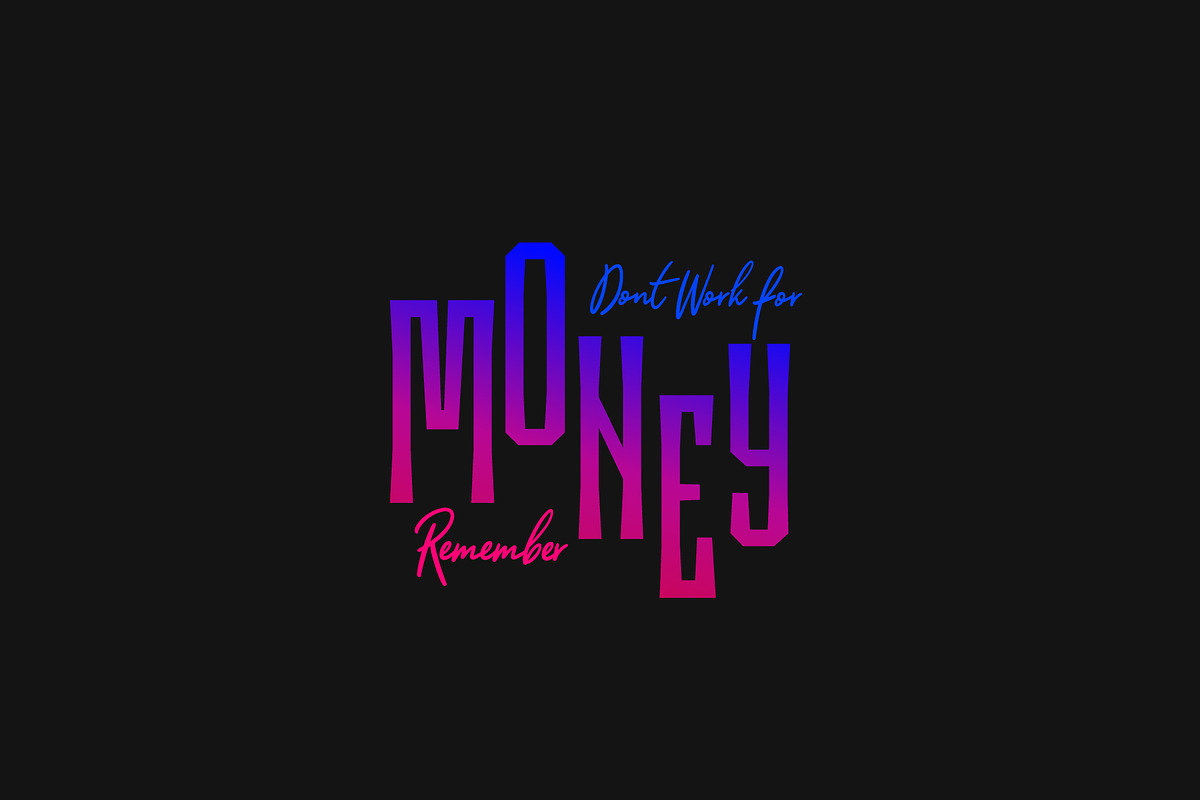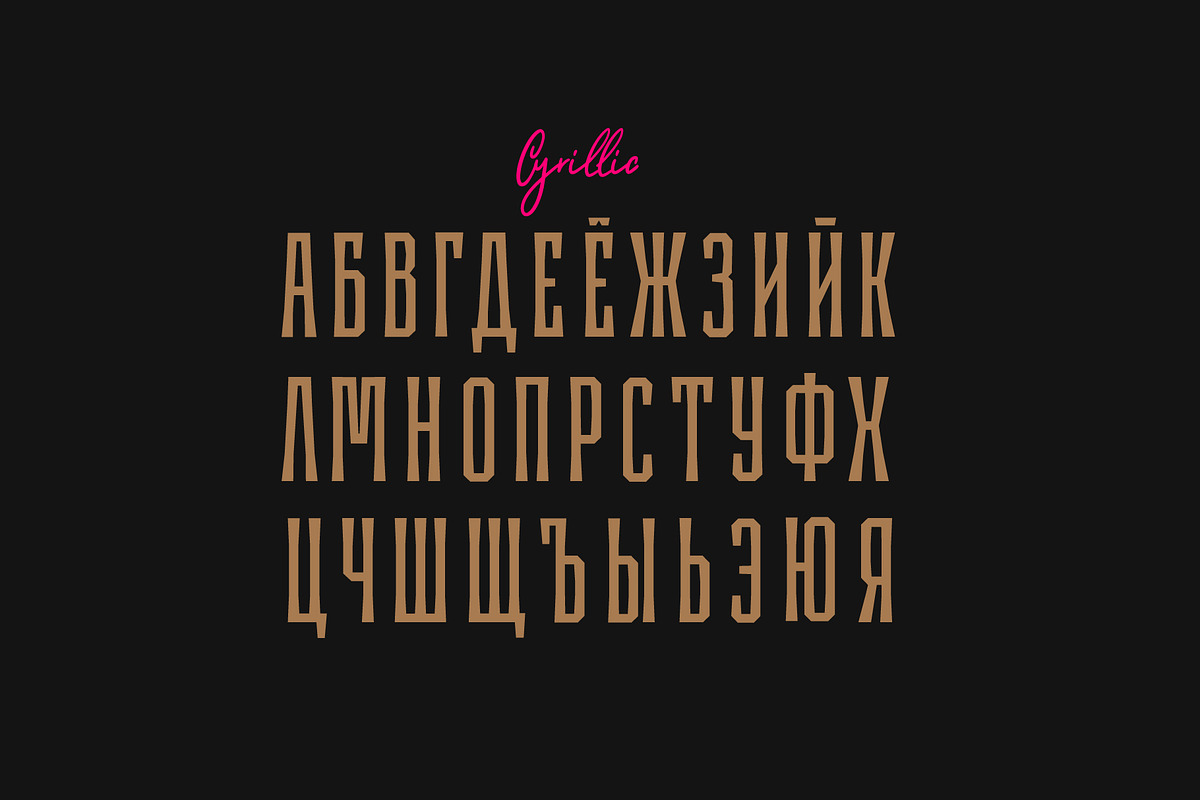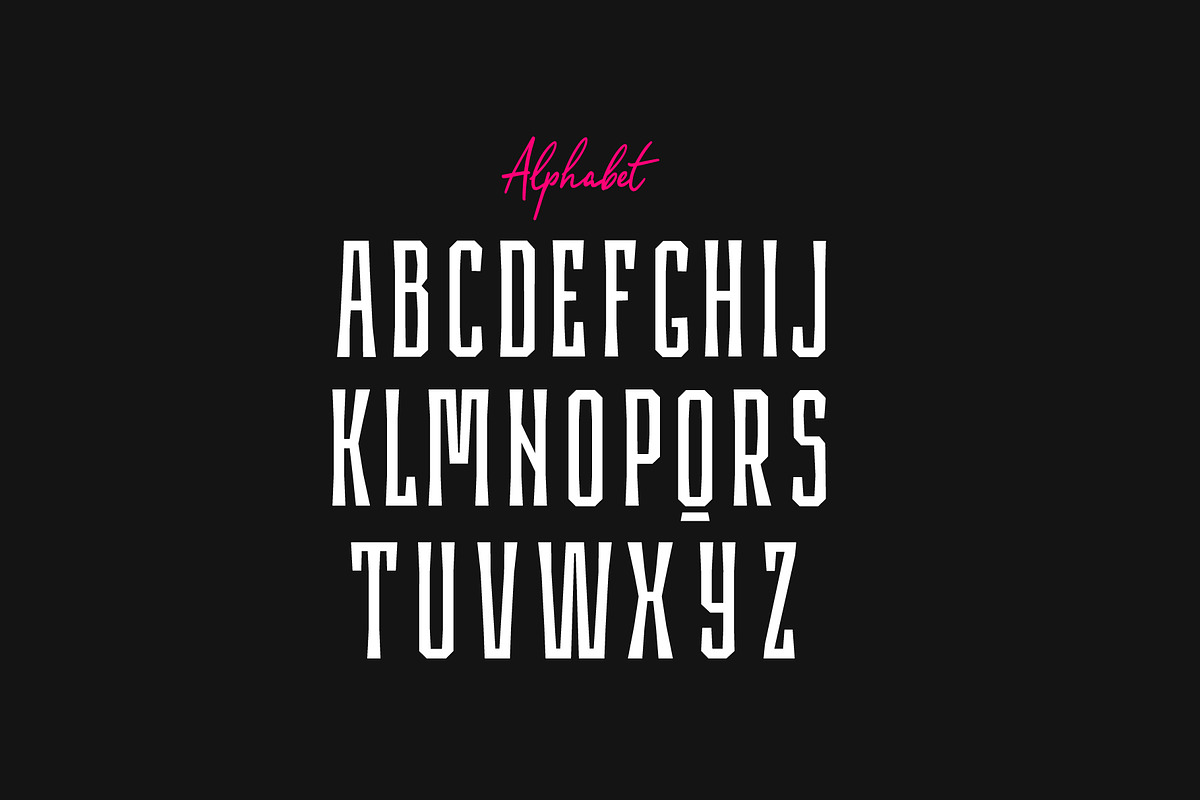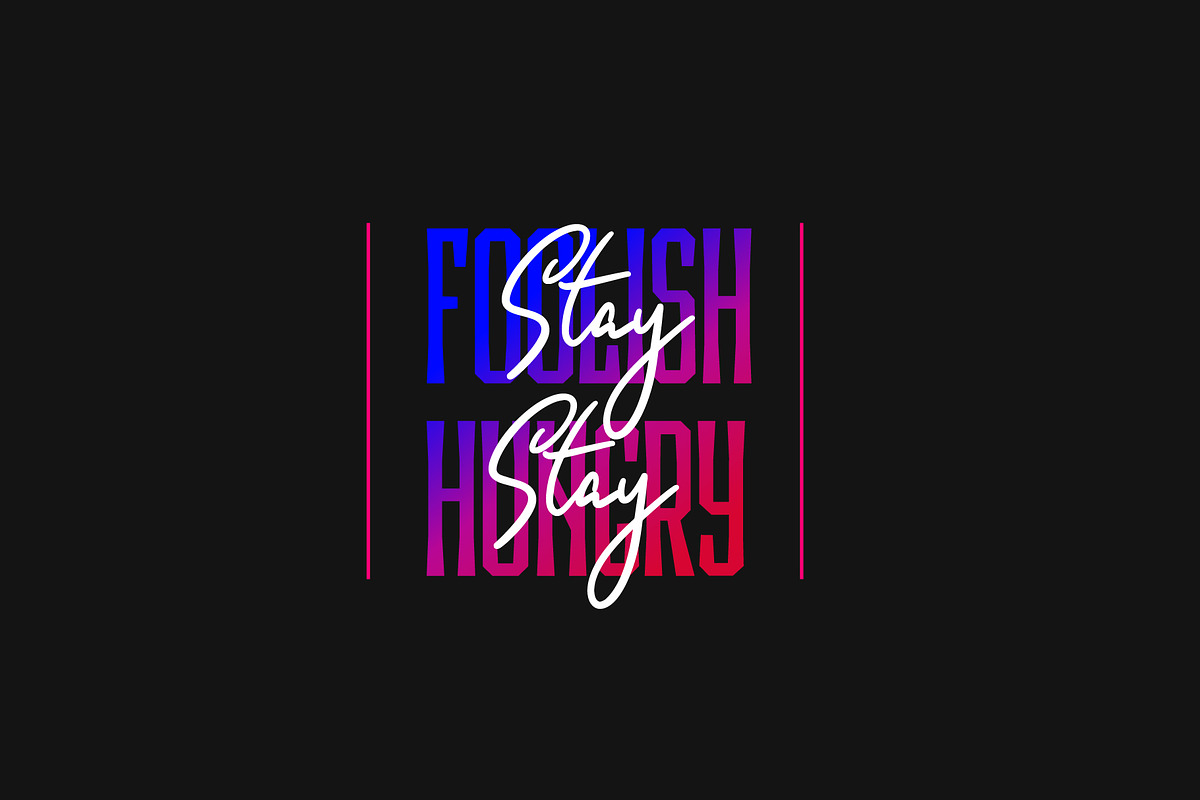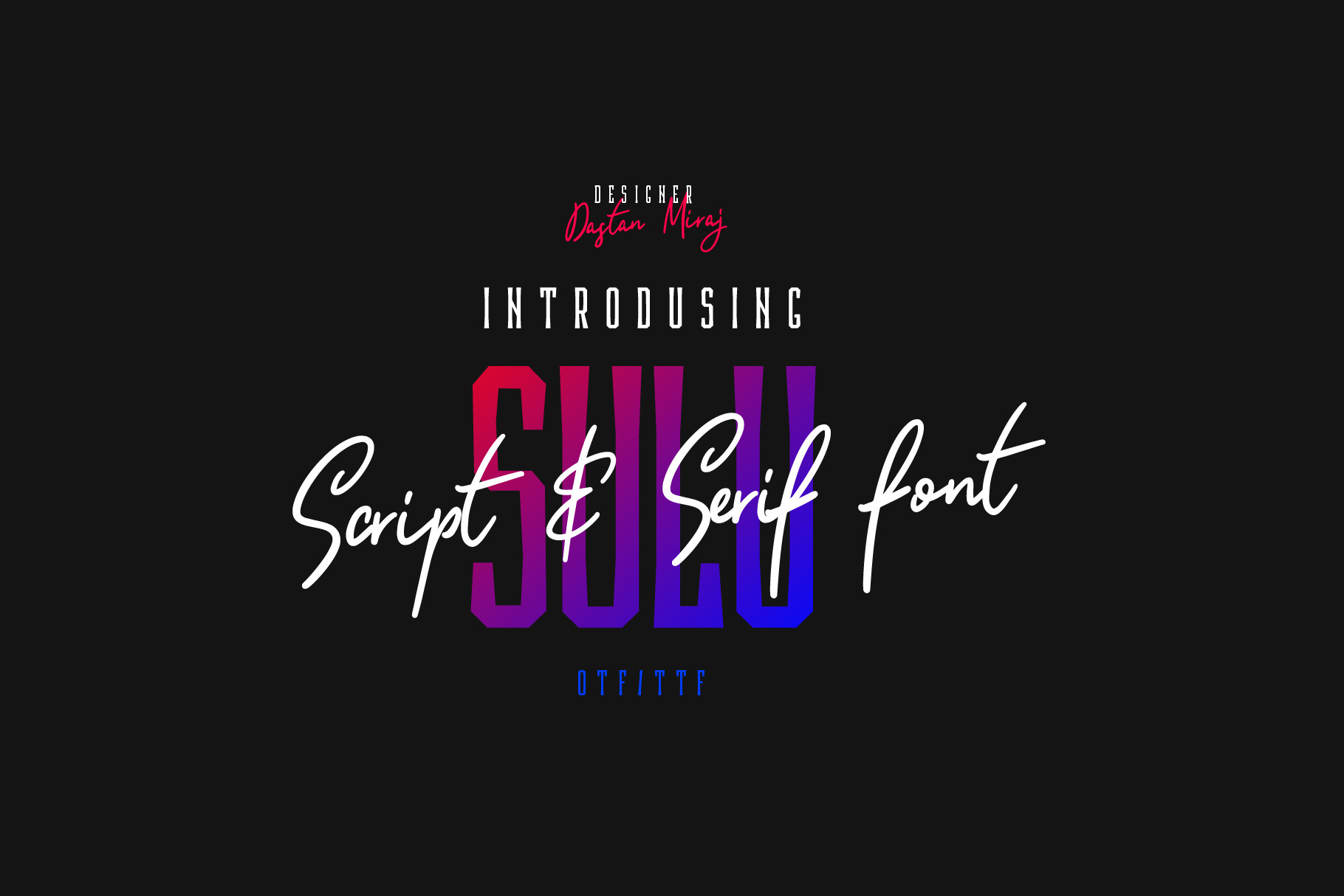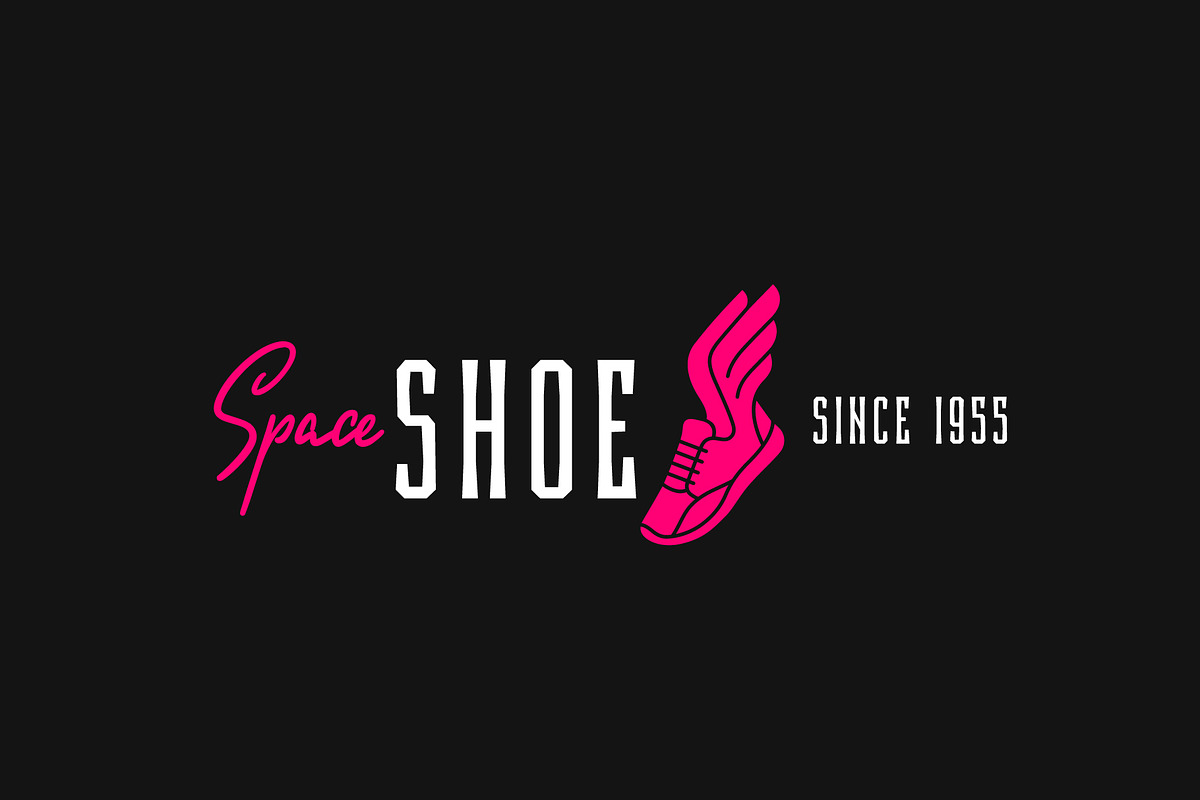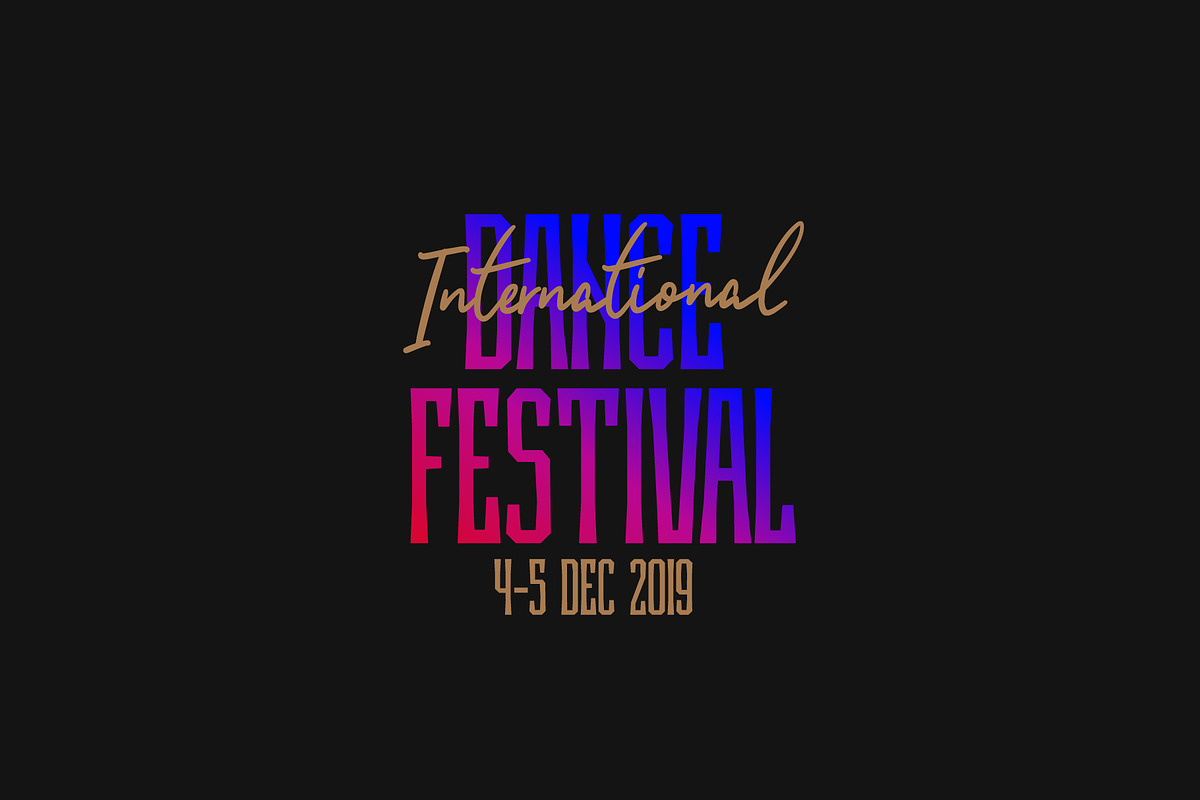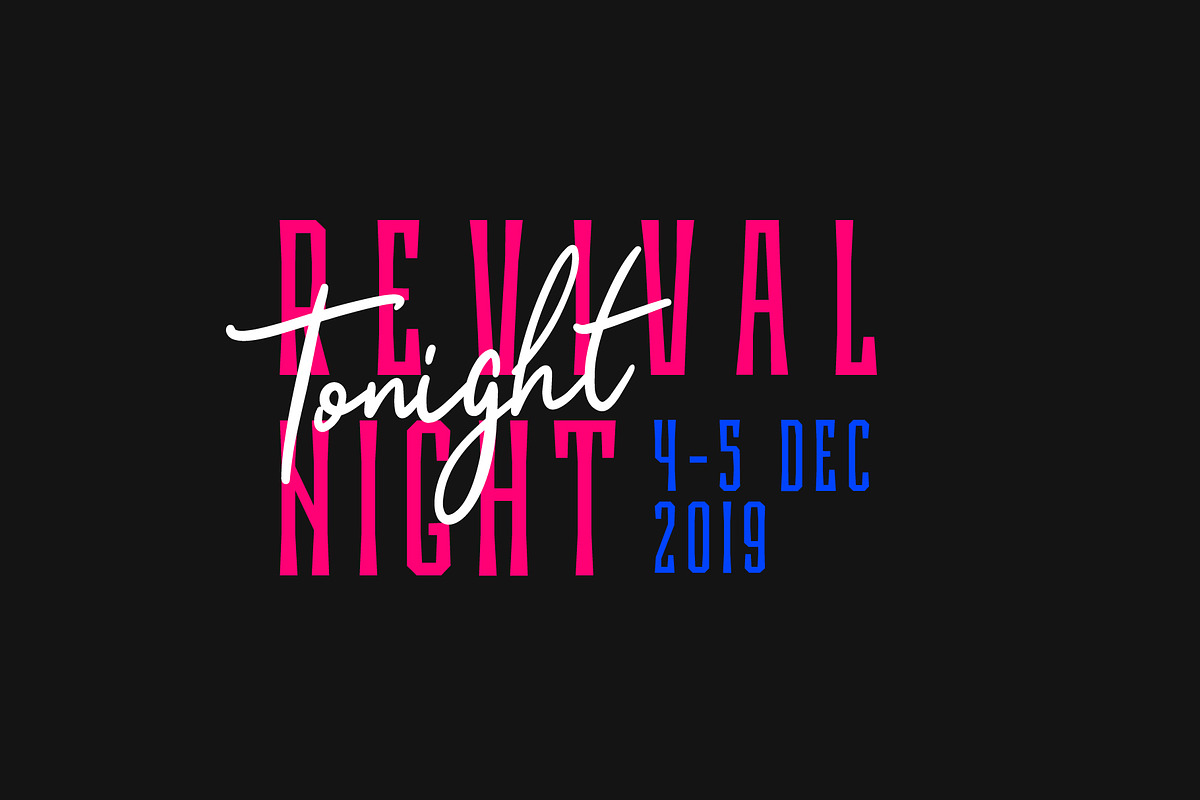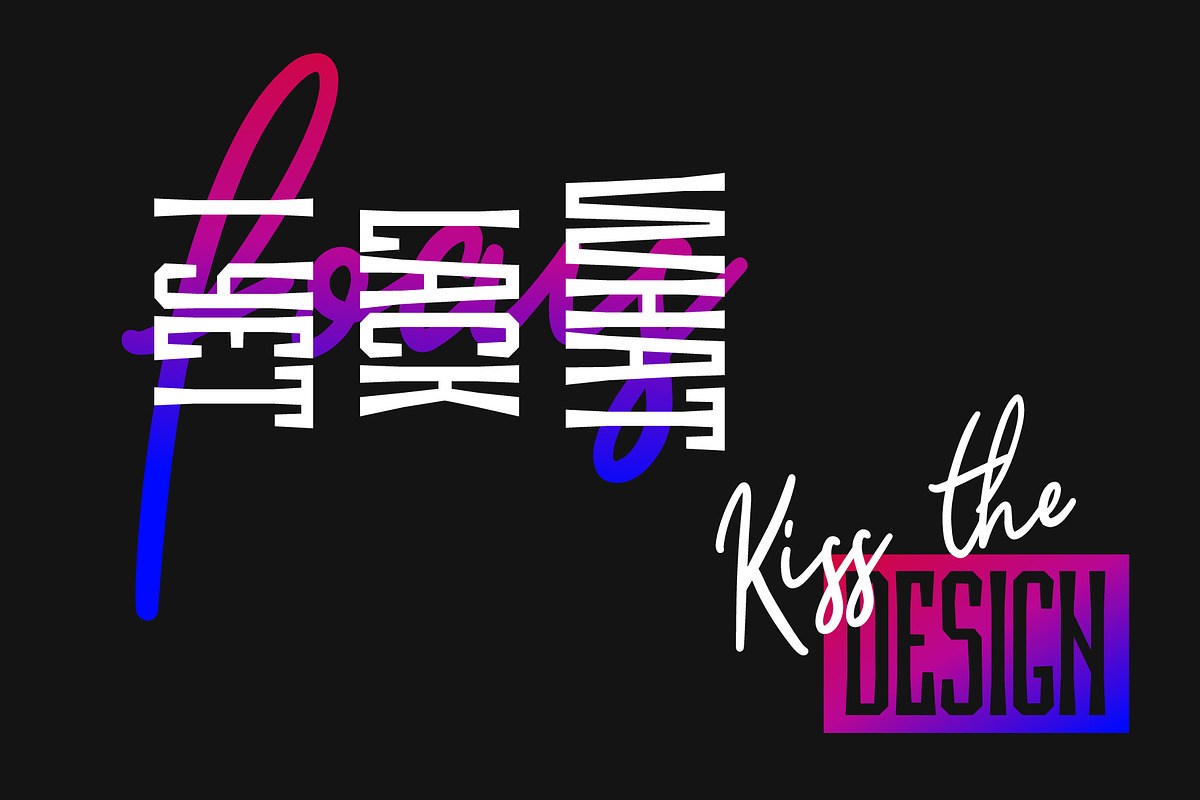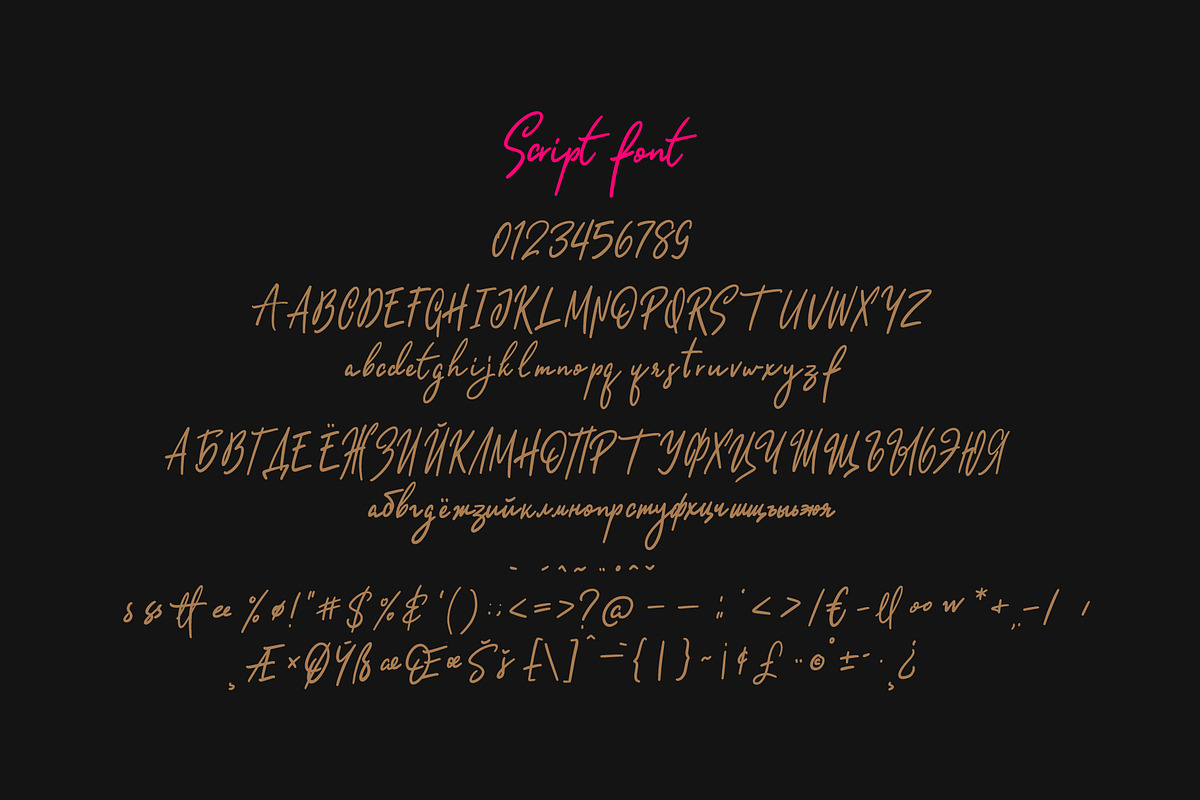
Sulu Duo font
Sulu is perfectly suited to signature, stationery, logo, typography quotes, magazine or book cover, website header, clothing, branding, packaging design and more.